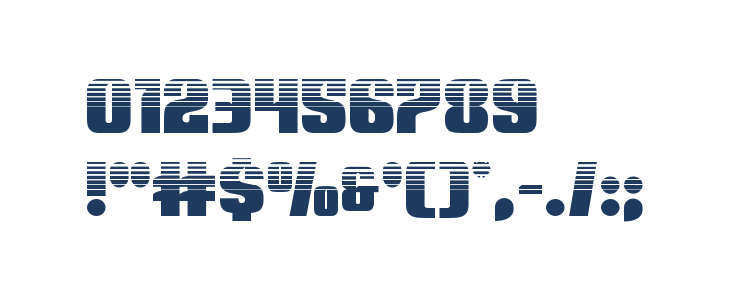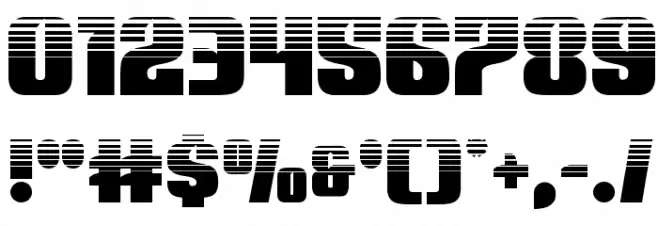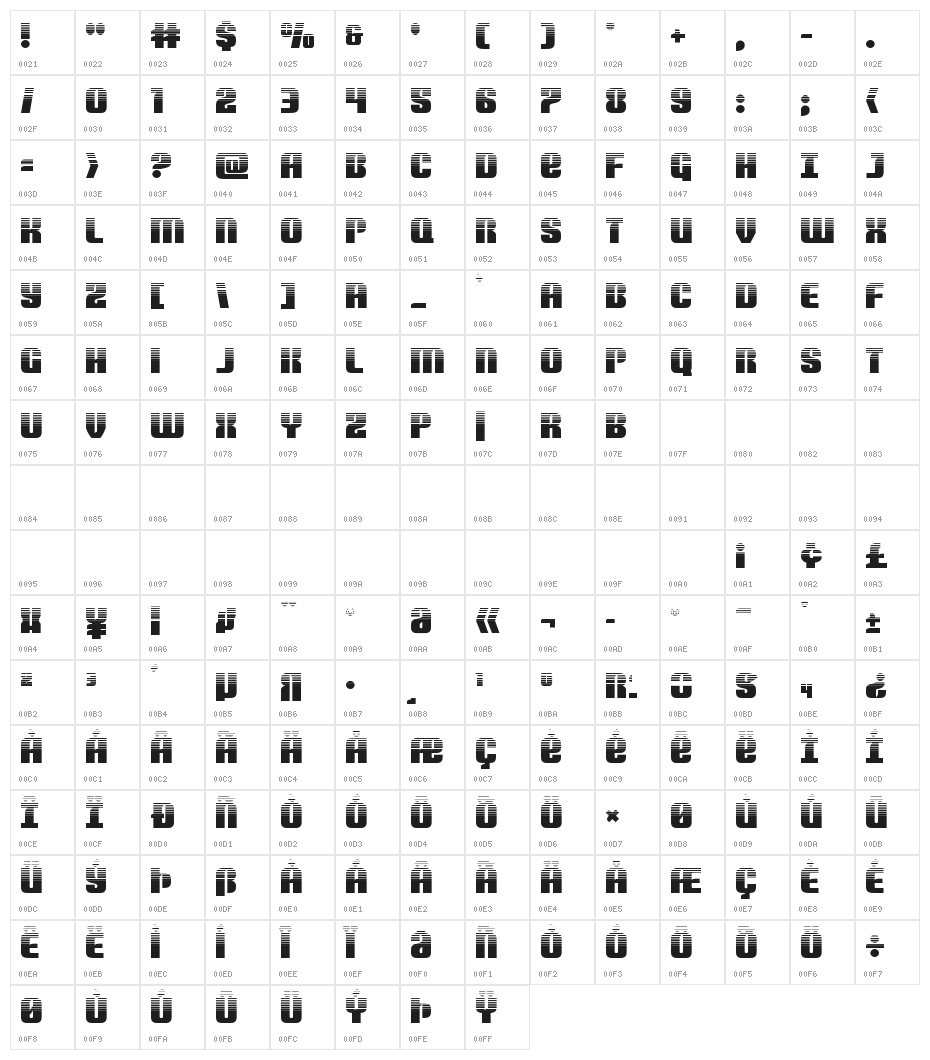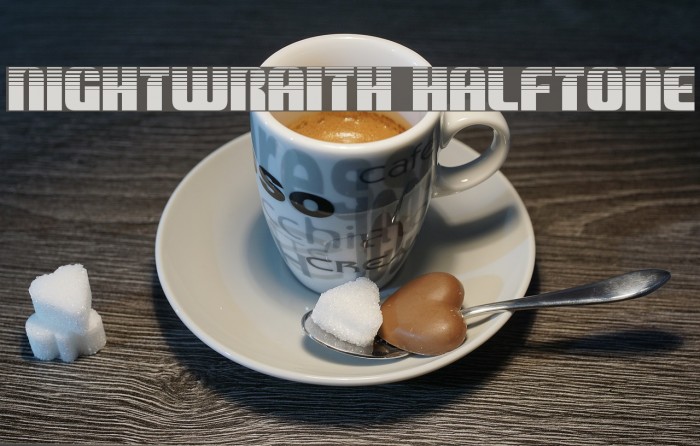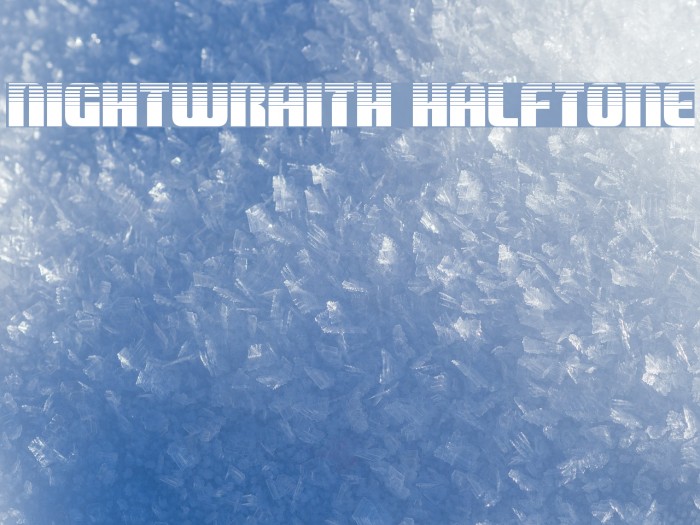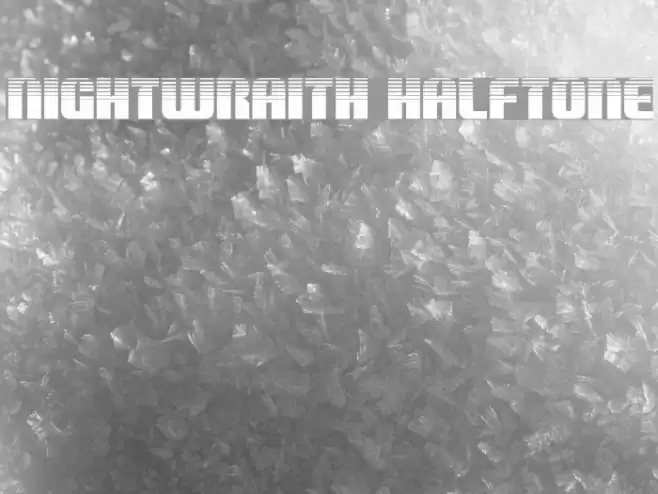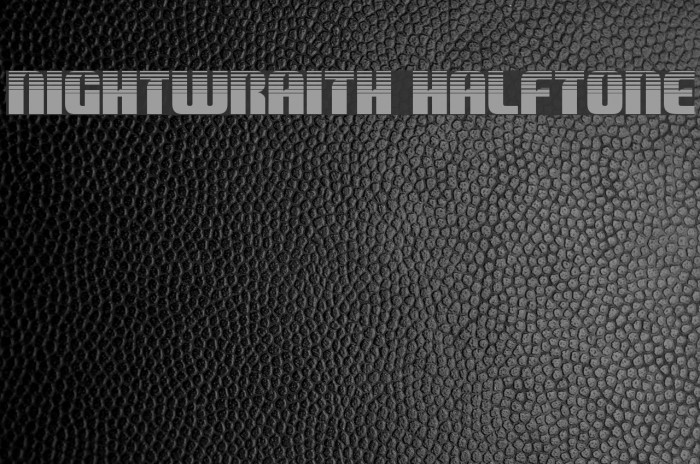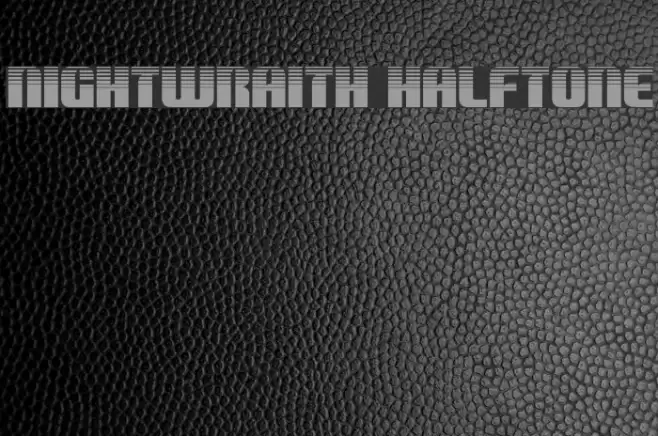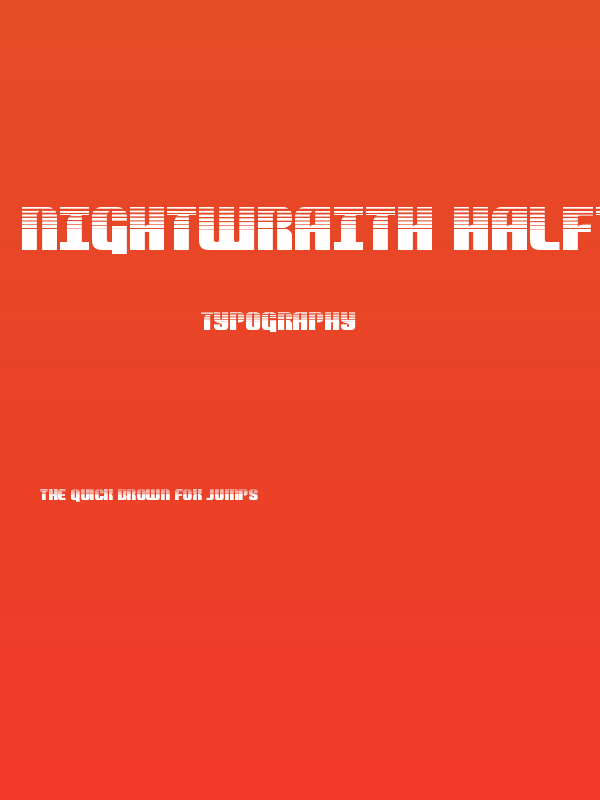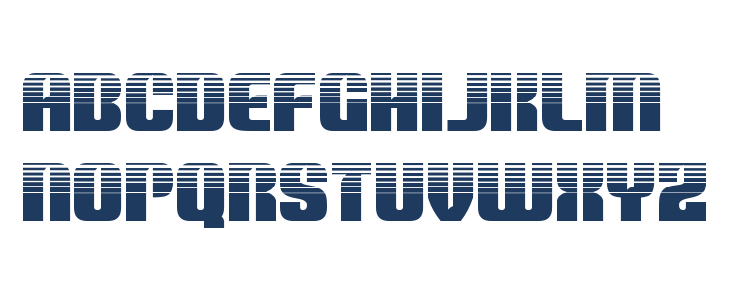
Nightwraith Halftone Font
Nightwraith Halftone Description
This font features a bold, striking design with a halftone effect that gives it a unique, modern appearance. The characters are constructed with a combination of solid and striped horizontal lines, creating a sense of movement and depth. The uppercase and lowercase letters maintain a consistent style, with the halftone effect applied uniformly across all characters. The numbers and special characters follow the same design principles, ensuring a cohesive look. This font's distinct style makes it ideal for projects that require a strong visual impact.